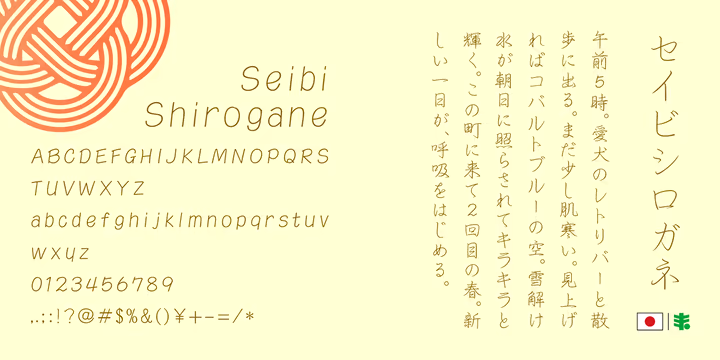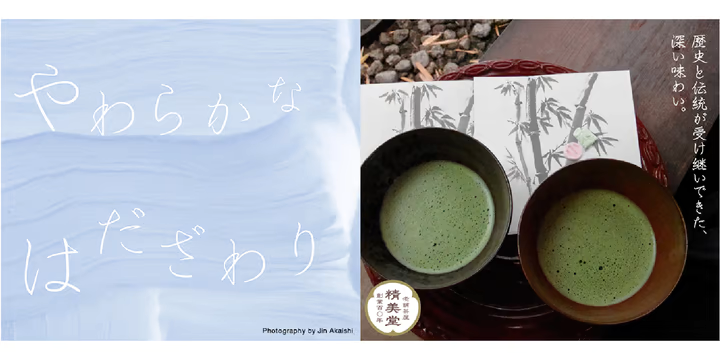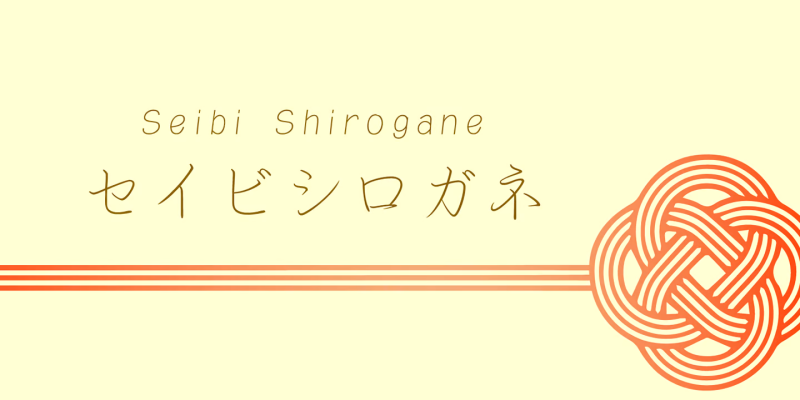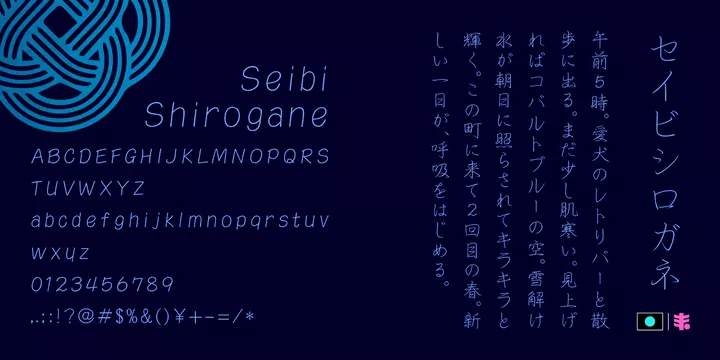
Seibi Shirogane Font
With an attractive hand-penned style featuring a natural balance between kanji and kana, characters are perfectly aligned whether typeset vertically or horizontally. Lea…
With an attractive hand-penned style featuring a natural balance between kanji and kana, characters are perfectly aligned whether typeset vertically or horizontally. Leave plenty of space between lines for the best effect
Where Seibi Shirogane Font works best
Event & seasonal design
Seibi Shirogane Font suits themed posters, holiday campaigns, festival identities and party invitations.
Game & entertainment titles
Decorative letterforms are a natural fit for game logos, movie-style titles and merch.
Packaging accents
Use Seibi Shirogane Font sparingly for product names or flavour labels that need personality.
What is Seibi Shirogane Font good for?
Seibi Shirogane Font is a Decorative Fonts typeface tagged Decorative, Decorative Fonts, Headlines, Professional. It works well for headlines, logos, posters, social media graphics and branding projects that need a distinctive decorative fonts look.